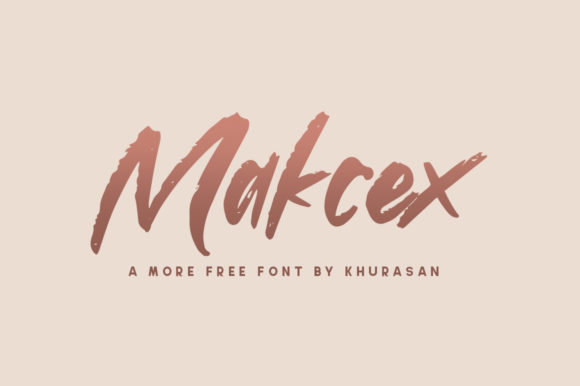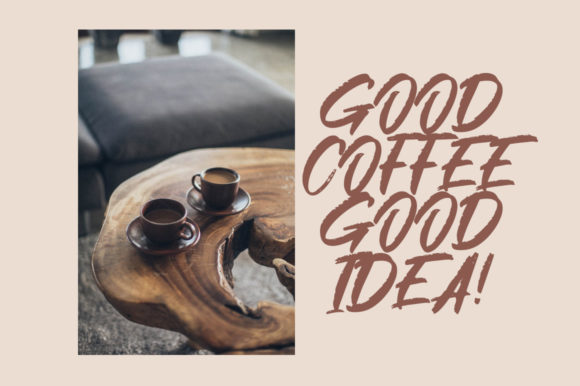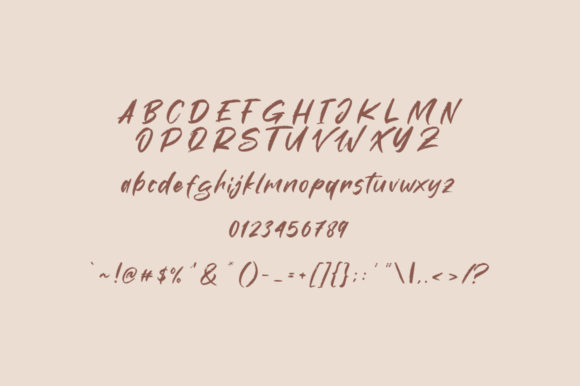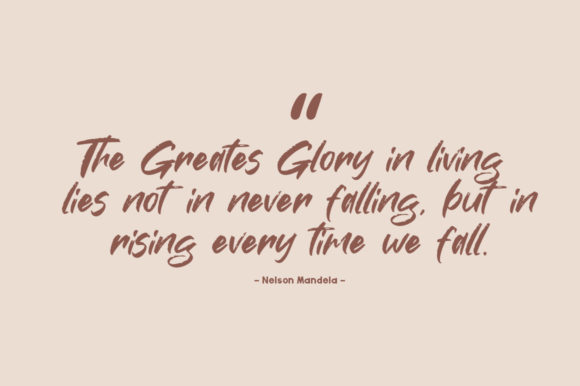
HomePersonal Use FreeMakcex Personal Use Free Makcex FacebookXPinterestWhatsApp 1 of 4 About Makcex Font Makcex is a modern brushed handwritten font with a casual feel. Use it for ads, logos, branding or any other design that requires a cool look! DOWNLOAD NOW People also explored Snowy Grinch Font Sparkling Font England Script Font Butterlove Font Holiday Garland Font Best Friends Font Ladisme Font Stonewar Font Play Elephant Silhouette Font 556 0 TagsMakcexMakcex Font Previous articleThe QuickNext articleGardening LEAVE A REPLY Cancel reply Comment: Please enter your comment! Name:* Please enter your name here Email:* You have entered an incorrect email address! Please enter your email address here Website: Save my name, email, and website in this browser for the next time I comment. Personal Use Free Rafika Personal Use Free Read more about this font Hagia Signal Personal Use Free Read more about this font Carrolina Personal Use Free Read more about this font No Virus Personal Use Free Read more about this font BLOG Free Fonts Risk: Why Free Fonts Can Be Dangerous for Designers Free Fonts Risk: Why Free Fonts Can Be Dangerous for Designers Using free fonts is a common practice in web and graphic design. However, the... Modern Sans-Serif Fonts That Brands Love in 2025 Best Fonts for YouTube Videos: Make Your Thumbnails Stand Out Using Fonts in Digital Marketing: Tips to Strengthen Your Brand Identity